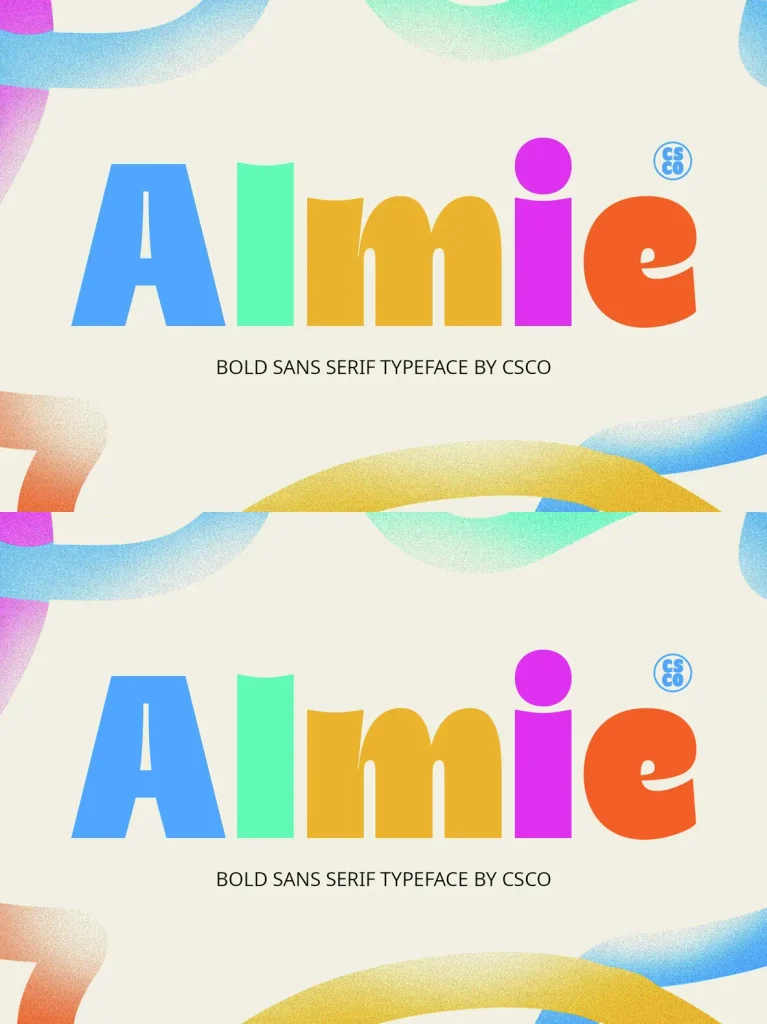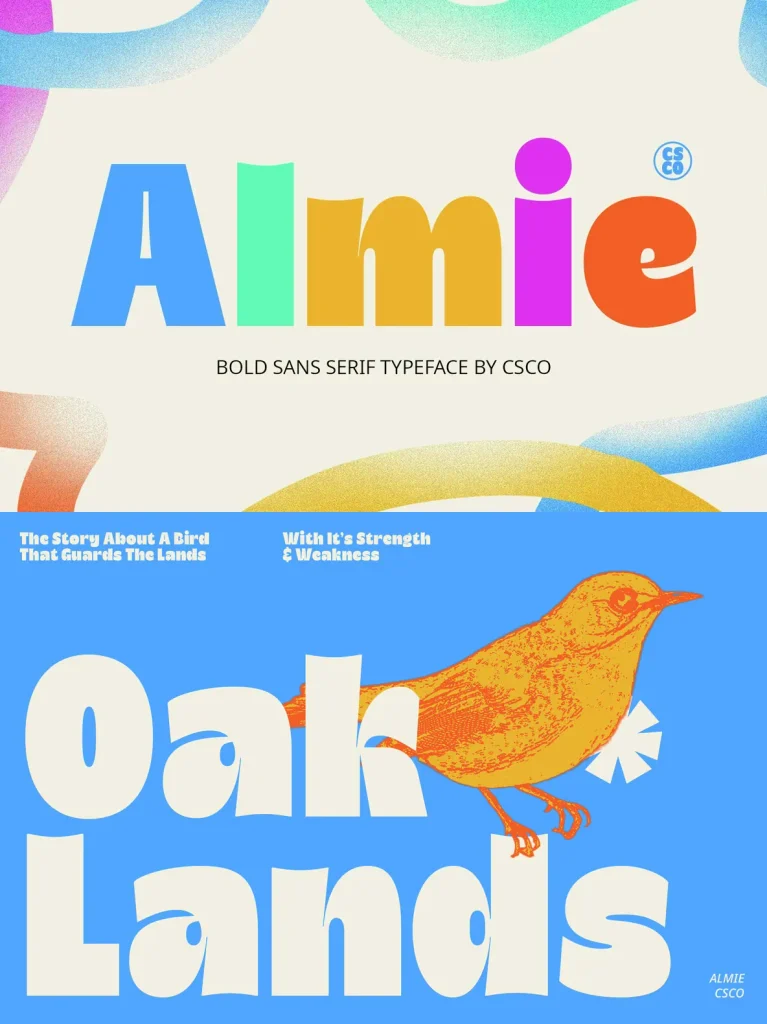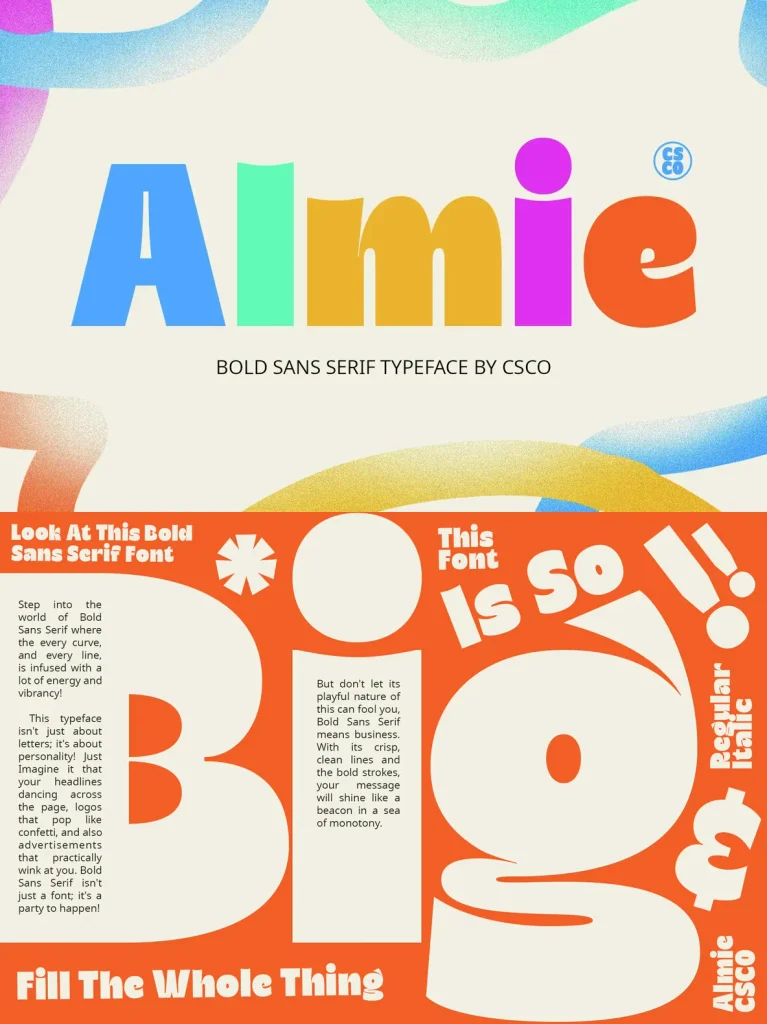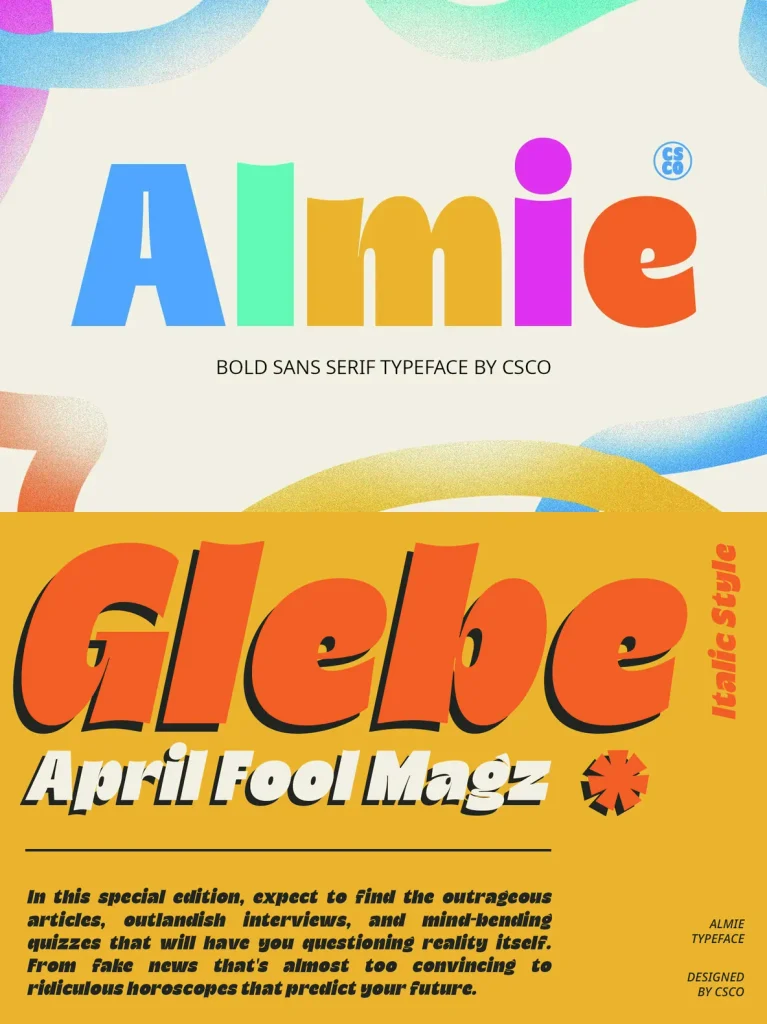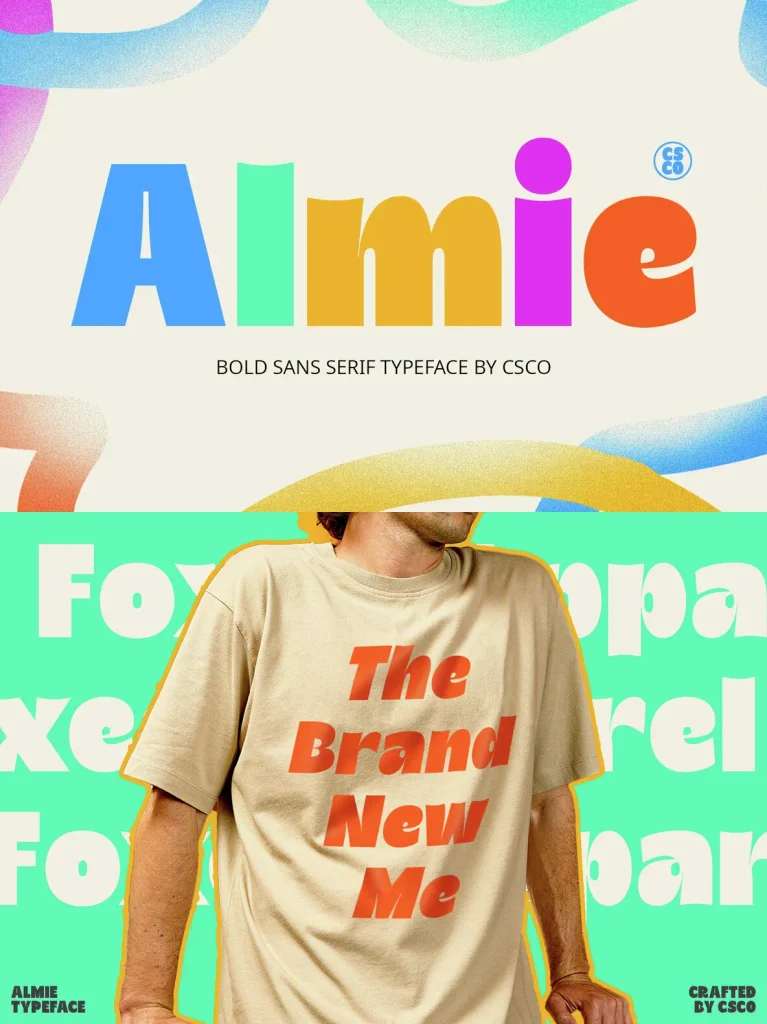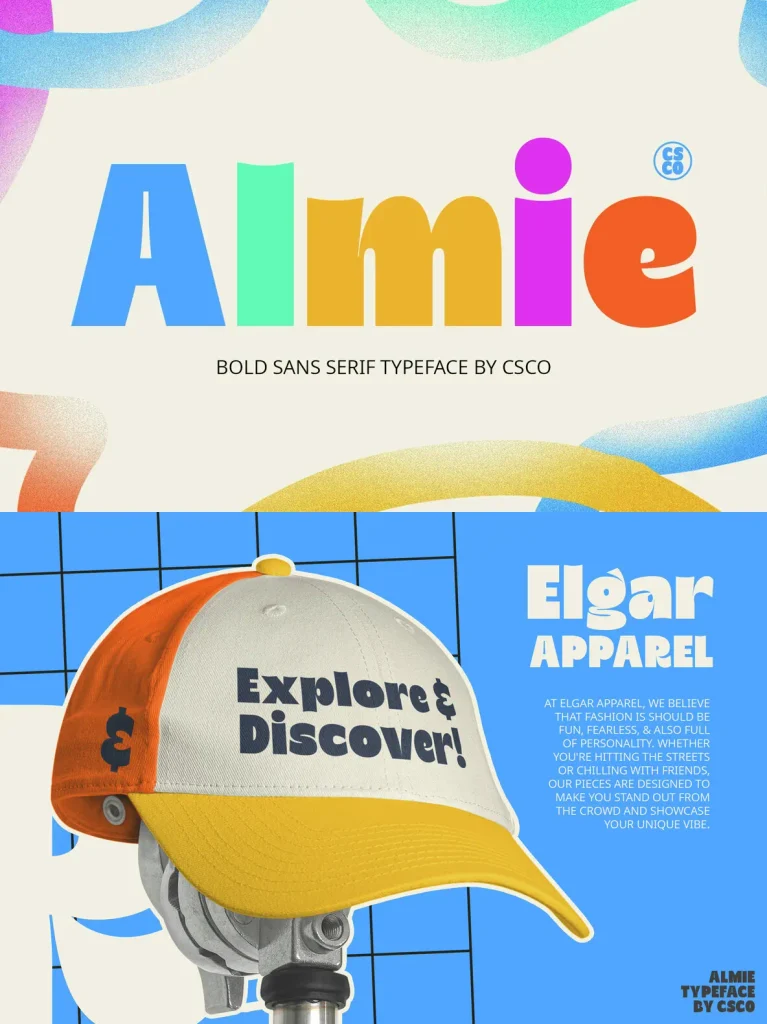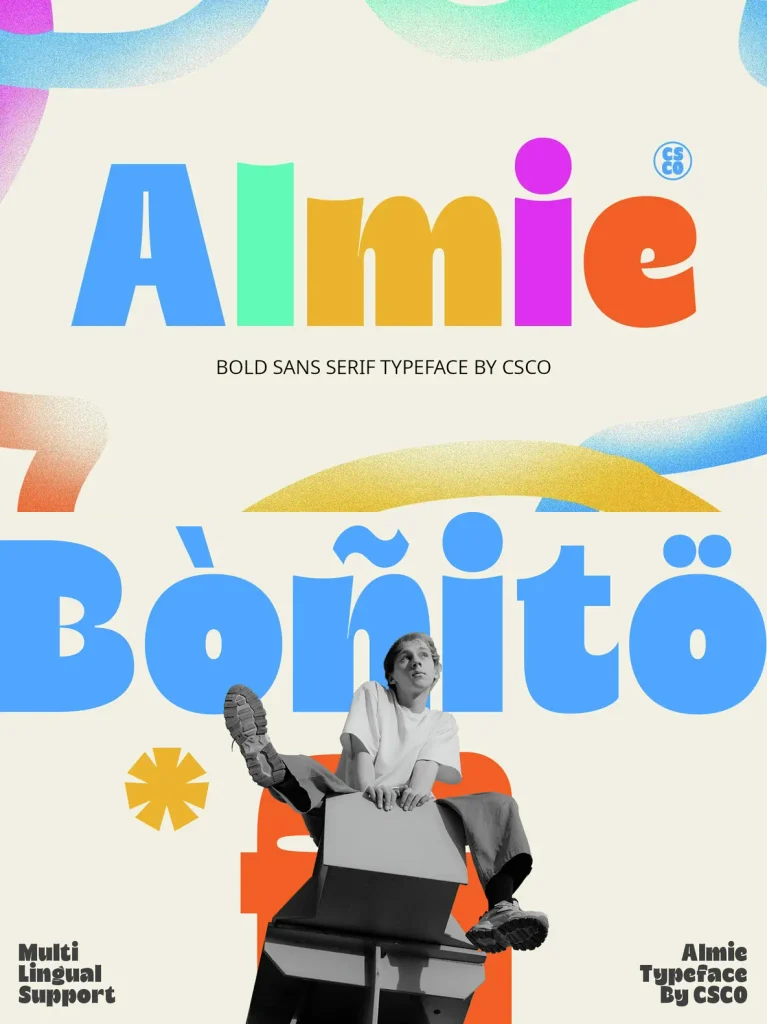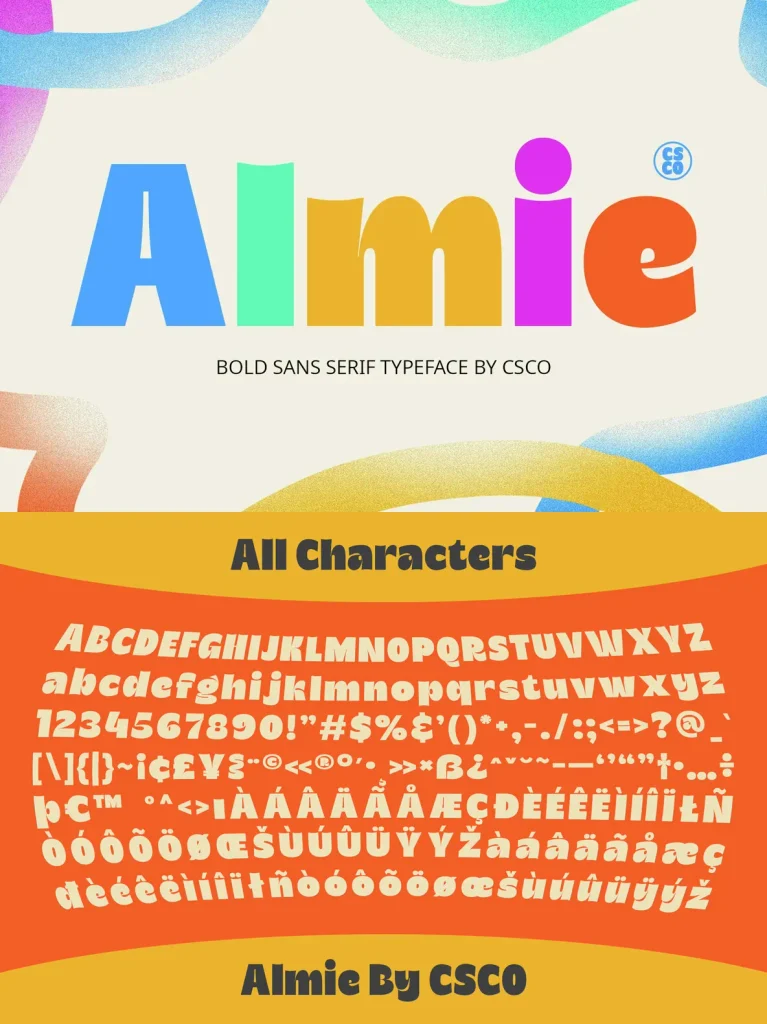
Almie Font
Almie — Bold Meets Funk
Almie is a heavy, chunky display face with soft corners, wide proportions, and distinctive teardrop counters. These details give it a playful retro tone while keeping the structure strong and direct. Its low-contrast strokes and tight apertures make Almie best suited to large sizes, where its quirky terminals and swash-like details can be seen clearly.
With strong lines and playful elements, Almie offers a fresh take on traditional sans serif fonts. The bold design and funky details create a lively, memorable look for poster headlines, packaging, signage, bold logotype work, branding, presentations, and other projects that need a clear touch of individuality.